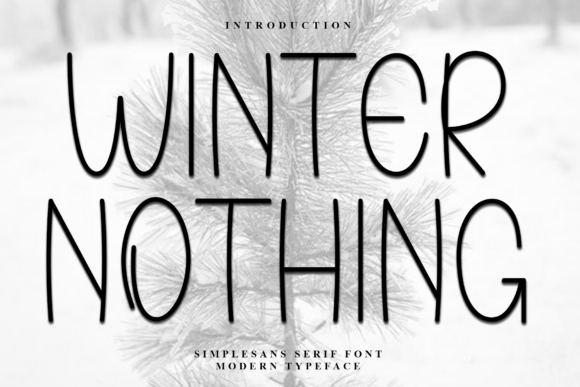
Winter Nothing: A Soft, Unique Typeface for Modern Design
In the crowded landscape of digital and print typography, finding a typeface that feels both familiar and distinctly new is a rare victory. Winter Nothing arrives as exactly that kind of discovery. It is not merely a collection of characters; it is a visual experience designed with a soft, unique touch that immediately captures the eye without shouting for attention. For designers, entrepreneurs, and creative professionals who are tired of generic sans-serif defaults or overly ornate scripts, this font offers a refreshing middle ground. Its distinctive strokes carry a special character, making every headline, logo, or package label feel meaningful and intentionally crafted.
Whether you are launching a new brand identity, designing a wedding invitation suite, or creating social media graphics for a lifestyle blog, the versatility of Winter Nothing allows it to adapt seamlessly. It bridges the gap between the organic warmth of a handwritten font and the clean precision required for modern typography. This natural font style is compatible with various applications, including Windows and open-source platforms, ensuring that your workflow remains smooth regardless of your preferred software stack.
The Visual Personality of Winter Nothing
What sets Winter Nothing apart from other display fonts in the market is its approach to stroke weight and curvature. Unlike rigid geometric sans serif fonts that can feel cold or distant, this typeface incorporates subtle variations that mimic the flow of human movement. The result is a premium font that feels alive. When you zoom in on the glyphs, you will notice that the curves are not perfectly circular; they possess a gentle irregularity that adds depth and charm. This makes it an excellent choice for projects requiring a sense of authenticity and approachability.
The personality of the font is inherently warm yet sophisticated. It avoids the pitfalls of many script fonts, which can sometimes sacrifice legibility for style. Instead, Winter Nothing maintains a strong structural integrity while retaining its artistic flair. This balance makes it a powerful tool for establishing a brand identity that is both professional and inviting. In editorial design, for instance, using this font for pull quotes or chapter headings can create a visual hierarchy that guides the readerβs eye naturally through the content, enhancing engagement without overwhelming the text body.
Ideal Applications Across Creative Industries
The true test of any commercial font lies in its ability to perform across diverse mediums. Winter Nothing excels in scenarios where emotional connection is key. Consider the realm of packaging design for artisanal products, such as small-batch candles, skincare lines, or gourmet food items. Here, the soft touch of the font communicates quality and care, suggesting that the product inside has been made with attention to detail. It elevates the perceived value of the item, turning a simple box into a memorable unboxing experience.
In the digital space, this typeface shines in web design and social media graphics. As a display font, it commands attention in hero sections, call-to-action buttons, and Instagram story overlays. Because it is compatible with major operating systems and design tools, integrating it into your existing design assets is straightforward. Marketers often struggle to find a creative font that reads well on mobile screens, but the clarity of Winter Nothing ensures that your message lands effectively even on smaller devices. It works particularly well for lifestyle brands, wellness startups, and boutique agencies looking to differentiate themselves from corporate competitors.
Furthermore, the font is highly effective for logo design. A logo needs to be scalable, recognizable, and timeless. The distinctive strokes of Winter Nothing provide enough unique geometry to stand out in a crowded marketplace while remaining simple enough to be remembered. Whether used in monochrome for a minimalist aesthetic or paired with vibrant colors for a playful vibe, the font adapts to the brand's voice effortlessly.
Strategic Implementation and Readability
While Winter Nothing is visually striking, successful typography always comes down to strategic implementation. One of the most critical aspects of using any display font is understanding its limitations regarding readability. Like many expressive typefaces, it is best suited for headlines, subheads, and short bursts of text rather than long-form paragraphs. Using it for body copy can strain the reader's eyes and disrupt the visual hierarchy. Instead, pair it with a neutral sans serif font or a classic serif font for the main text. This font pairing strategy creates a harmonious contrast that enhances professionalism and ensures the content remains accessible.
Evaluating project fit is another essential step before committing to a typeface. Ask yourself what emotion you want to evoke. If your goal is to convey luxury, heritage, or seriousness, a traditional serif might be more appropriate. However, if you aim to communicate creativity, softness, and modernity, Winter Nothing is an ideal candidate. Test the font at different sizes to see how the details hold up. Does the unique touch remain visible when scaled down for a business card? Does it lose impact when blown up for a billboard? These practical considerations ensure that your design choices translate well from screen to print.
Ultimately, the decision to use Winter Nothing is about embracing a style that balances artistry with utility. It invites designers to explore new possibilities in layout and composition while providing a reliable foundation for clear communication. Whether you are crafting a delicate wedding invitation or branding a bold new startup, this font offers the perfect blend of softness and strength to bring your vision to life.